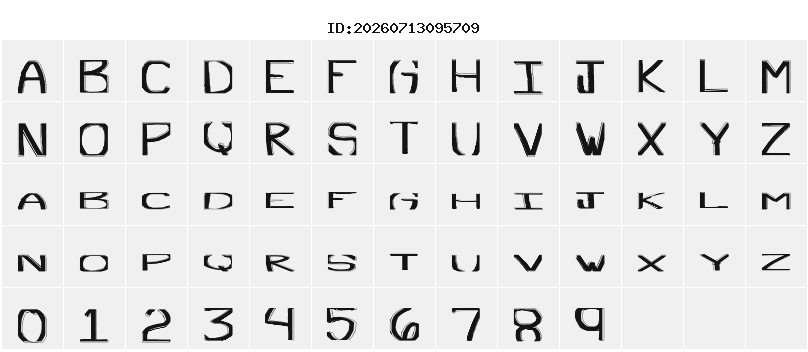
Raspberry Rosin.ttf is a modern, elegant sans-serif font designed for ultimate readability and visual harmony. Perfect for branding, headlines, web design, and print materials.